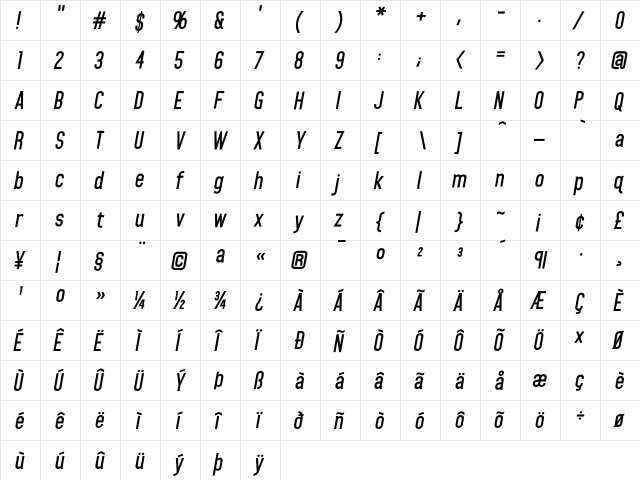
Home Planet BB Bold Italic
Design Context for Home Planet BB Typeface
Home Planet BB takes a measured approach to typography — its balanced proportions and neutral character make it a reliable workhorse for both digital and print work. The dynamic lean of this cut emphasises speed and emphasis in any layout. Its bold stroke weight gives it real presence on the page.
Pro Tip: Use Home Planet BB for emphasis, pull quotes, and subheadings where its slanted energy can add rhythm to the layout.